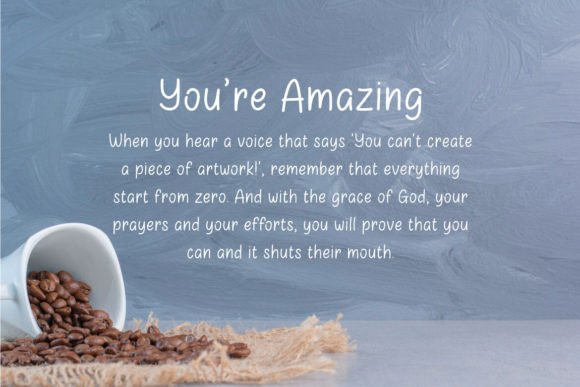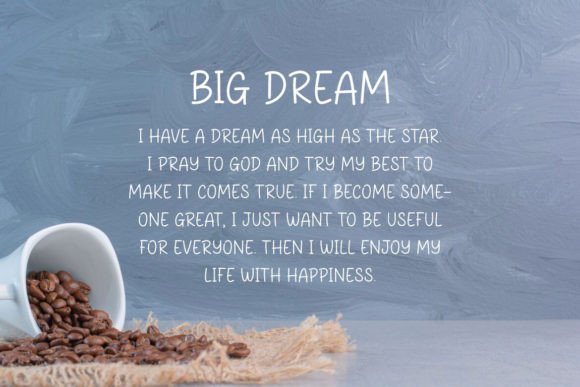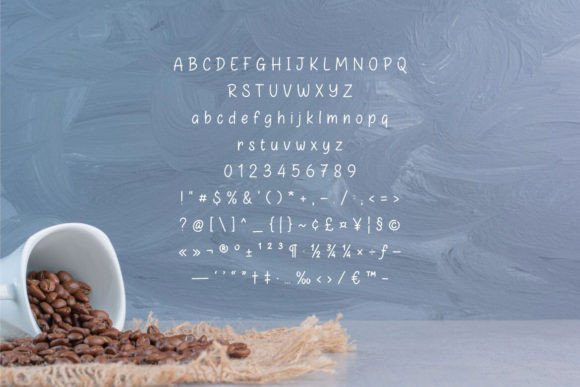
Introduction to Roastery Font
**Guest Book** is a handwritten cute sans serif font.
Guest Book can be used in any work such as comic books, posters, school, flyers, book titles, advertisements, social media content, logos, and many more .
Key Features of Roastery Font